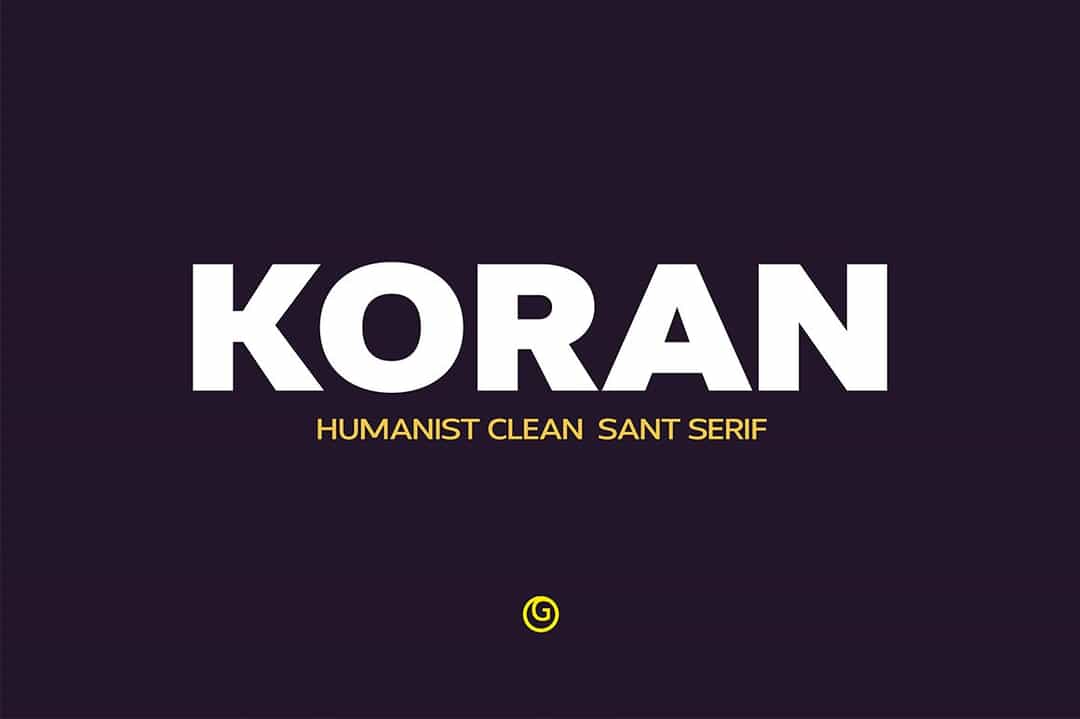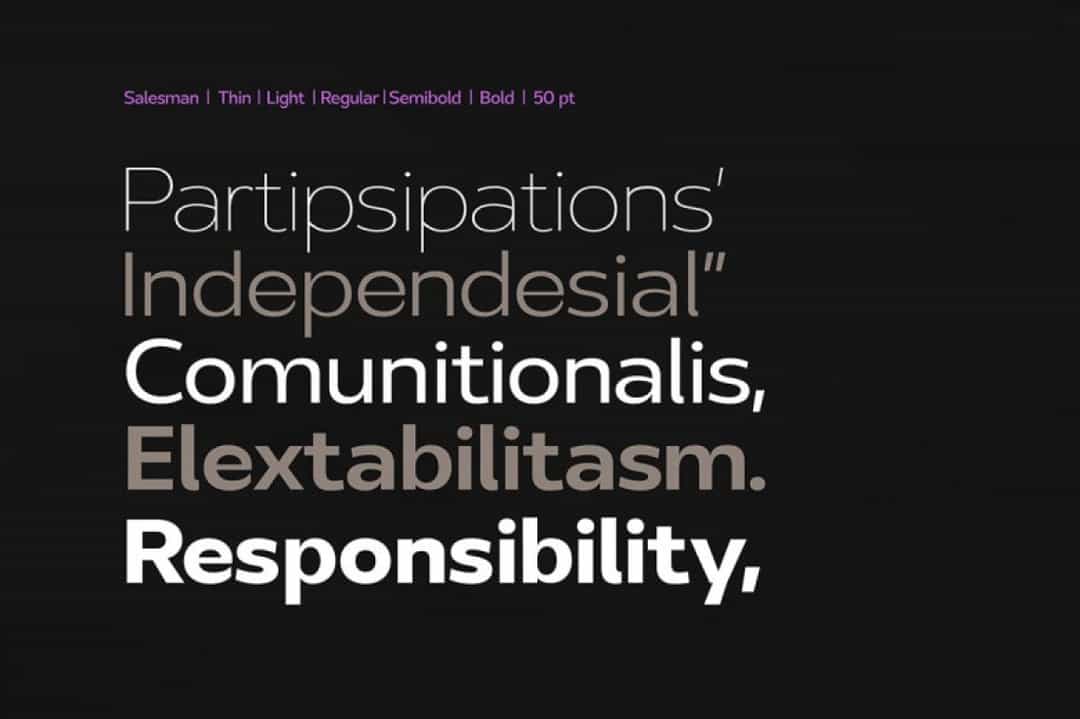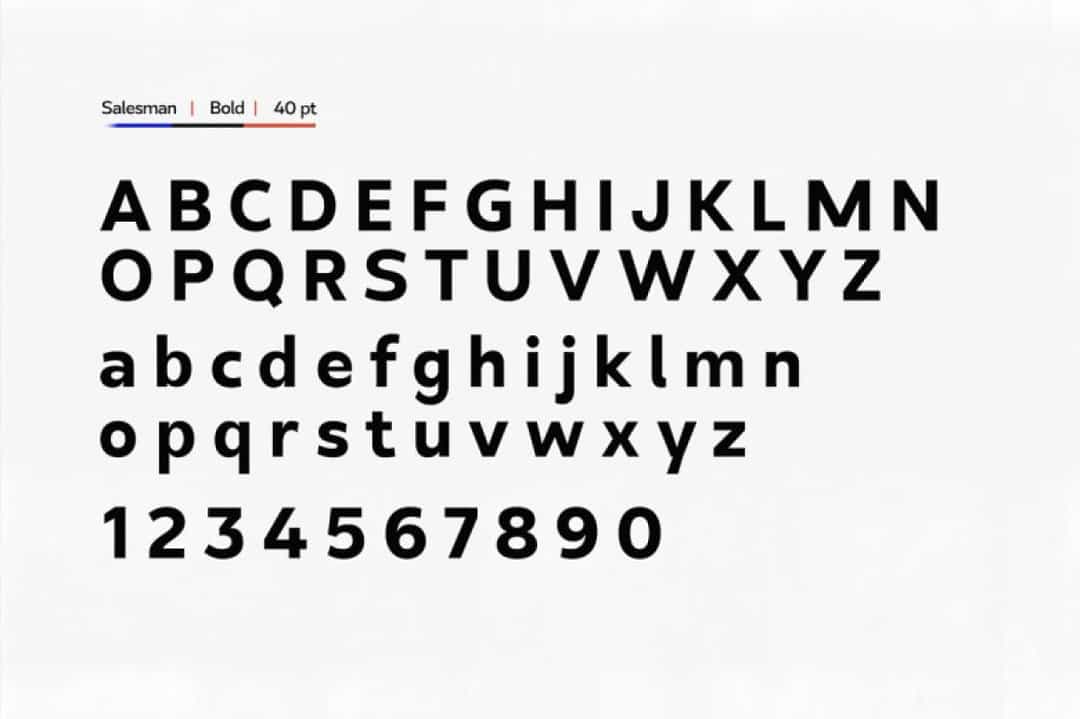
Koran font family offers a simple yet striking style without being gendered-specific; making it suitable for editorial headlines. Comprised of upright and italic letters, 18 styles can easily be utilized across projects, with its multilingual capabilities as well as icons included.